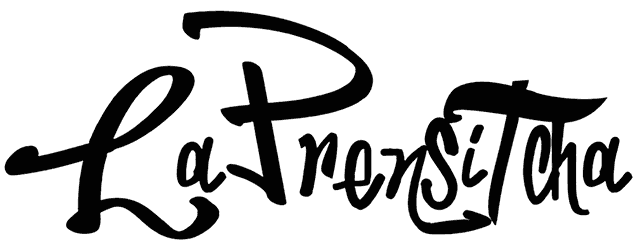
Vtks LaPrensitcha Font
This would be a surprising idea to use a modern graffiti font in your upcoming design. Vtks LaPrensitcha with a brush lettering face will be a unique style for your urban flyers or street art designs. That’s a bit illegible, but this feature gives it a cool vibe and surely can make up for the lack of numerals and punctuation marks.